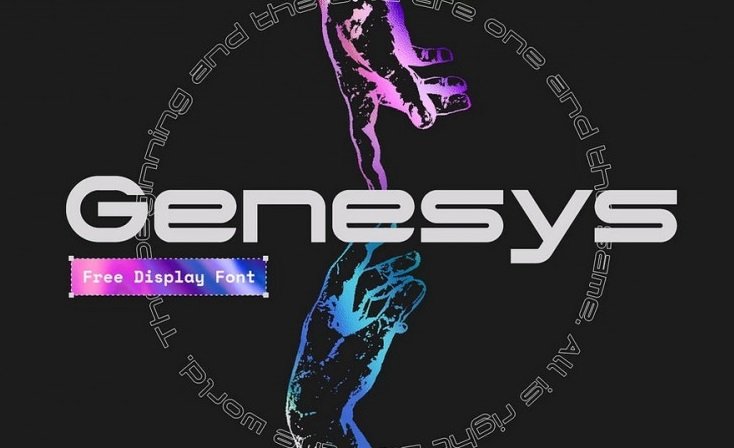
Genesys Font
This is a free display font with bold geometric mono-line forms with sharp edges to embrace futurism and high-tech. It’s built to be big, sleek, and formidable—just like the mechanically-engineered beings that inspired it.